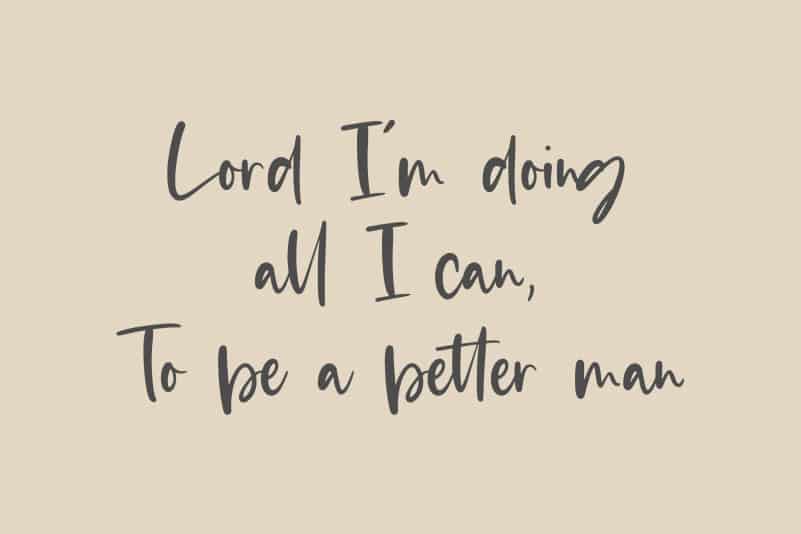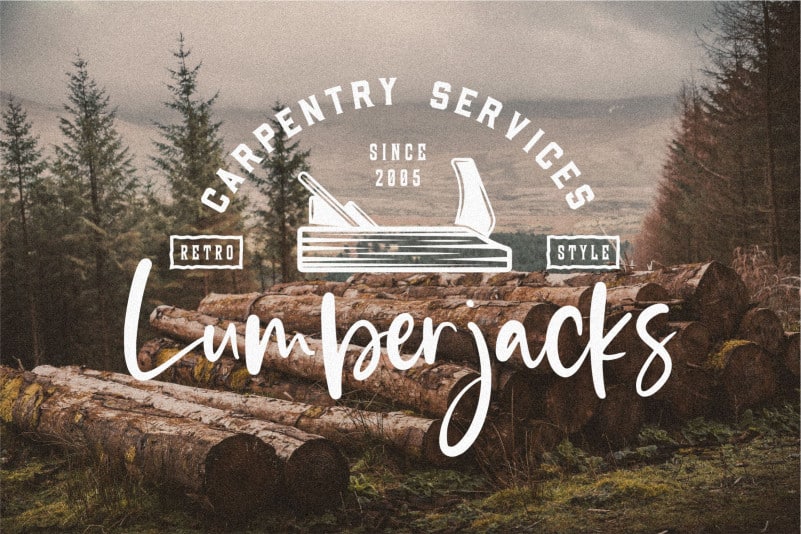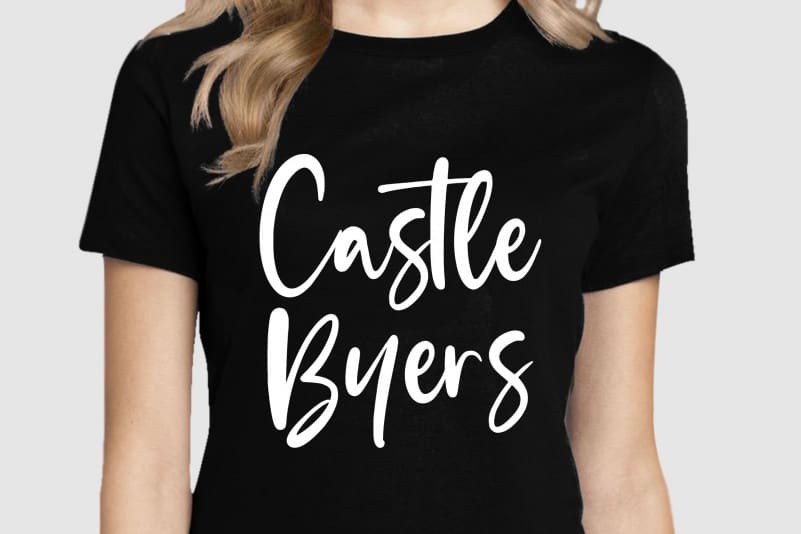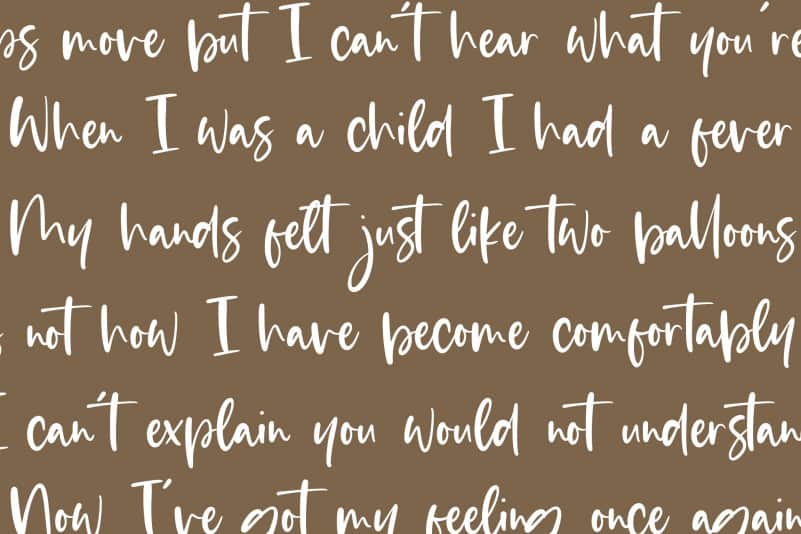
Eastwood Stylish Bold Script Font
Proudly Present, Eastwood Stylish Bold Script Font.
Eastwood is a Stylish Bold Script Font.
Eastwood is perfect for product packaging, branding project, megazine, social media, wedding, or just used to express words above the background.